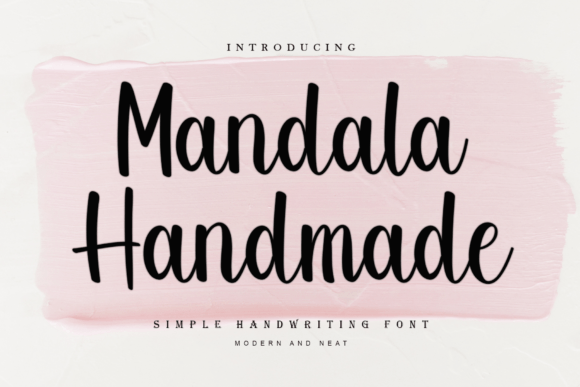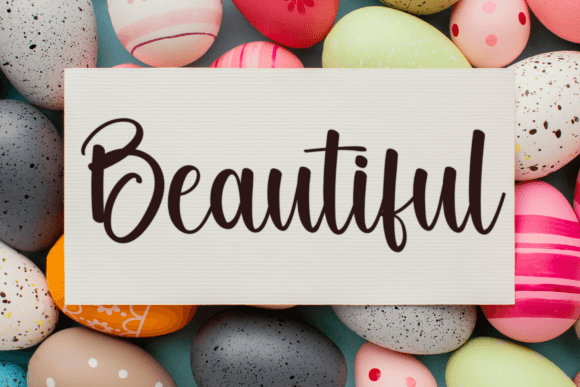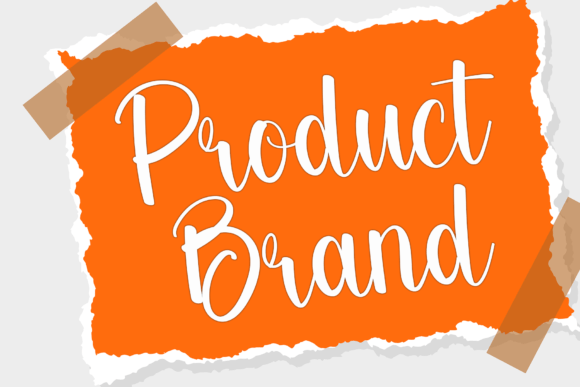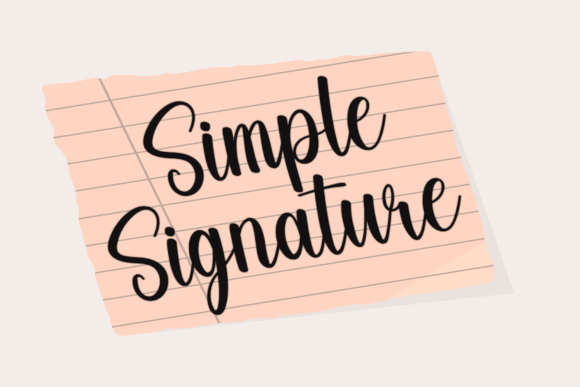
Mandala Handmade Font
About the Mandala Handmade Font
Explore the possibilities with Mandala Handmade Font, a font that offers both beauty and functionality. Mandala Handmade is a stylish handwritten font with a contemporary atmosphere and impeccable form, inspired by timeless classic calligraphy. Balanced and varied, this font was designed to enhance the beauty of your projects.
Mandala Handmade thrives in applications requiring a touch of elegant informality. It excels in headlines, short text blocks on invitations or greeting cards, and branding elements where a handcrafted feel is desired. Consider it for logos, short quotes within marketing materials, or packaging designs for boutique products. However, its handcrafted nature makes it unsuitable for extended body text or UI elements where legibility at smaller sizes is crucial.
This font pairs well with clean sans-serif fonts like Montserrat or Lato for a modern contrast, or with a classic serif like Garamond or Playfair Display for a more traditional feel. A geometric sans-serif such as Futura could also create a striking juxtaposition.
The overall personality of Mandala Handmade is sophisticated yet approachable; it conveys a sense of refined casualness, making it ideal for brands aiming for a balance between elegance and approachability.
Mandala Handmade Font Usage Examples
Mandala Handmade Font Example